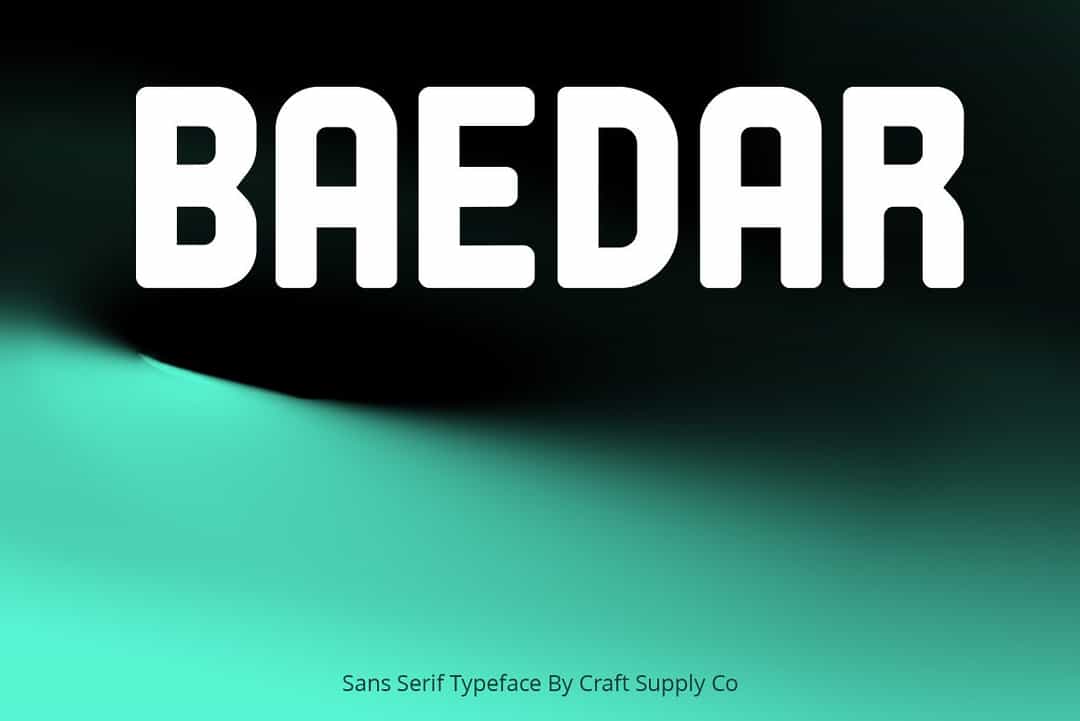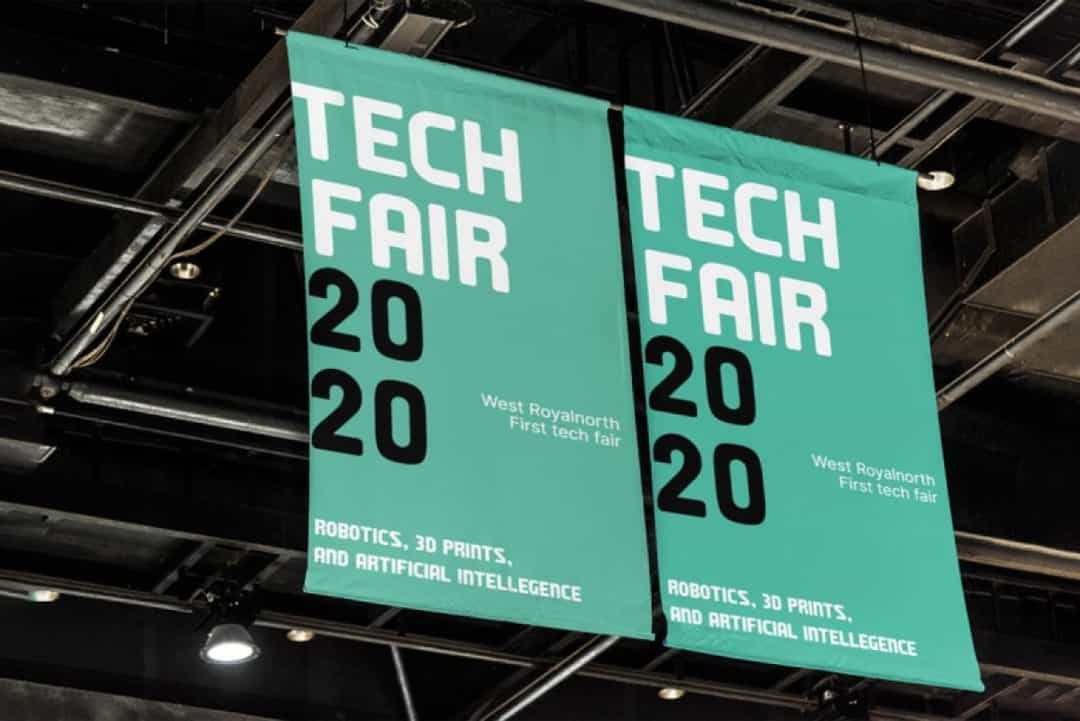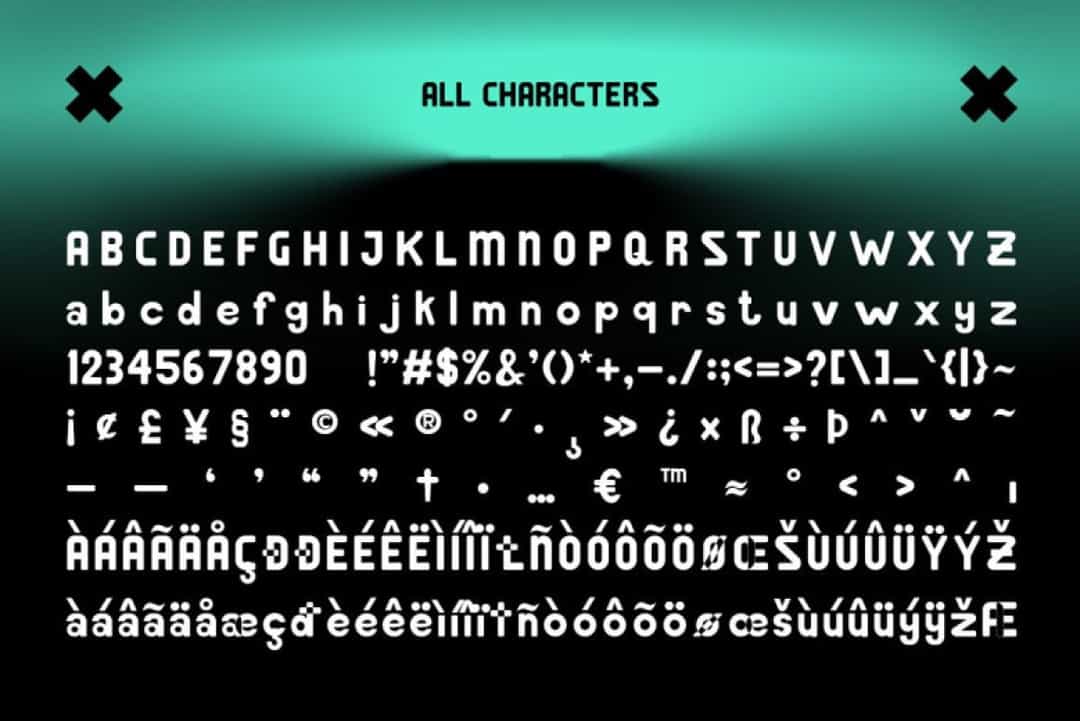
Baedar Is A Bold and Rounded Sans Serif Font, this font was designed to catch your eye and is both warm and accessible, with inviting rounded corners that immediately draw people in. Eye-Catching Appeal stands out immediately grabbing people’s attention making it perfect for headlines and text that immediately grabs attention such as posters websites and marketing materials; its boldness draws them in immediately! No matter if it is posters websites or any other form of marketing material; Baedar will ensure your message stands out clearly and accessible!